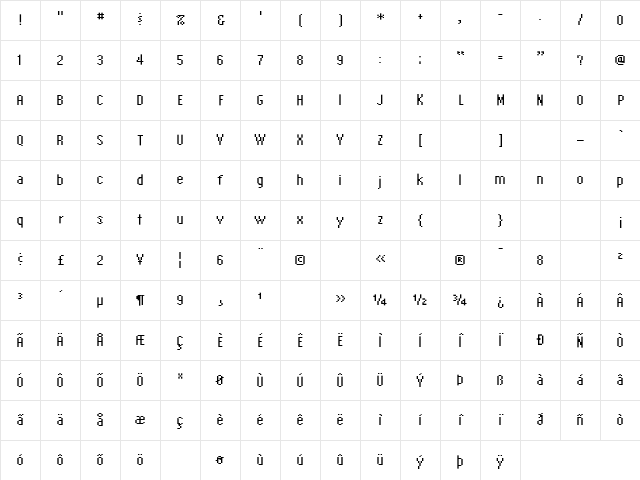
EmperorEight Medium
Design Context for EmperorEight
EmperorEight is a composed and adaptable typeface that performs quietly and consistently across a wide range of design contexts.